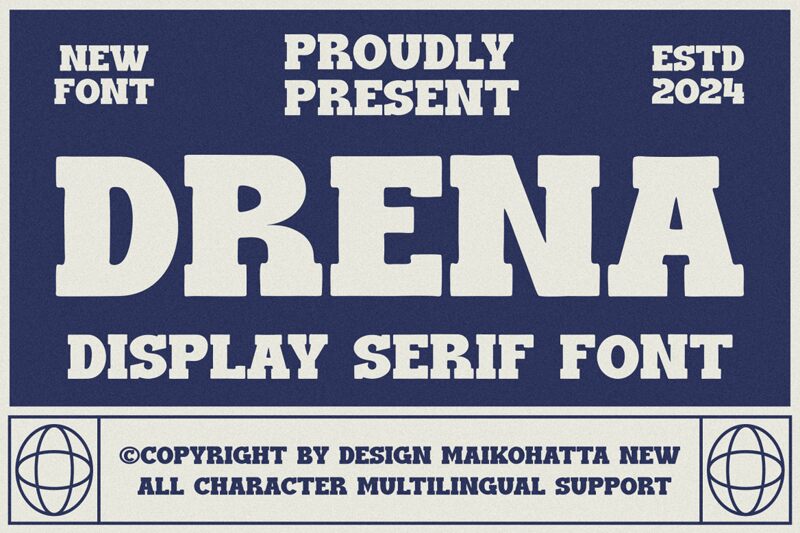
Drena font family by Gilang Ternadho features a retro style with a vintage feel. The impactful family of fonts holds an authoritative presence with a robust structure reminiscent of the historical signs and posters. The typographic slab serif offers contemporary applications in branding as well as classic designs formed around the familiar build of the letters.
Use Drena for headlines that your readers will not overlook! Other applications include social media posts, magazine and newspaper titles, posters, banners, invitations, book covers and others. Let this font family evoke strength and tradition to those who come across it.